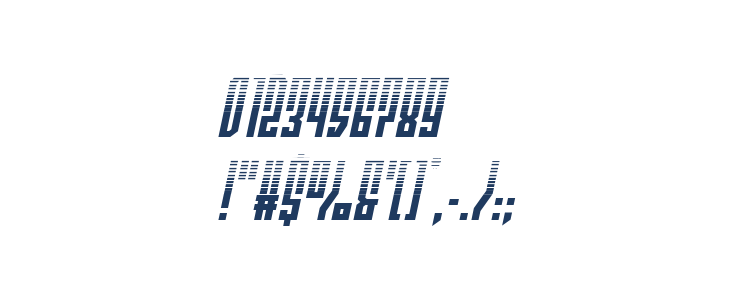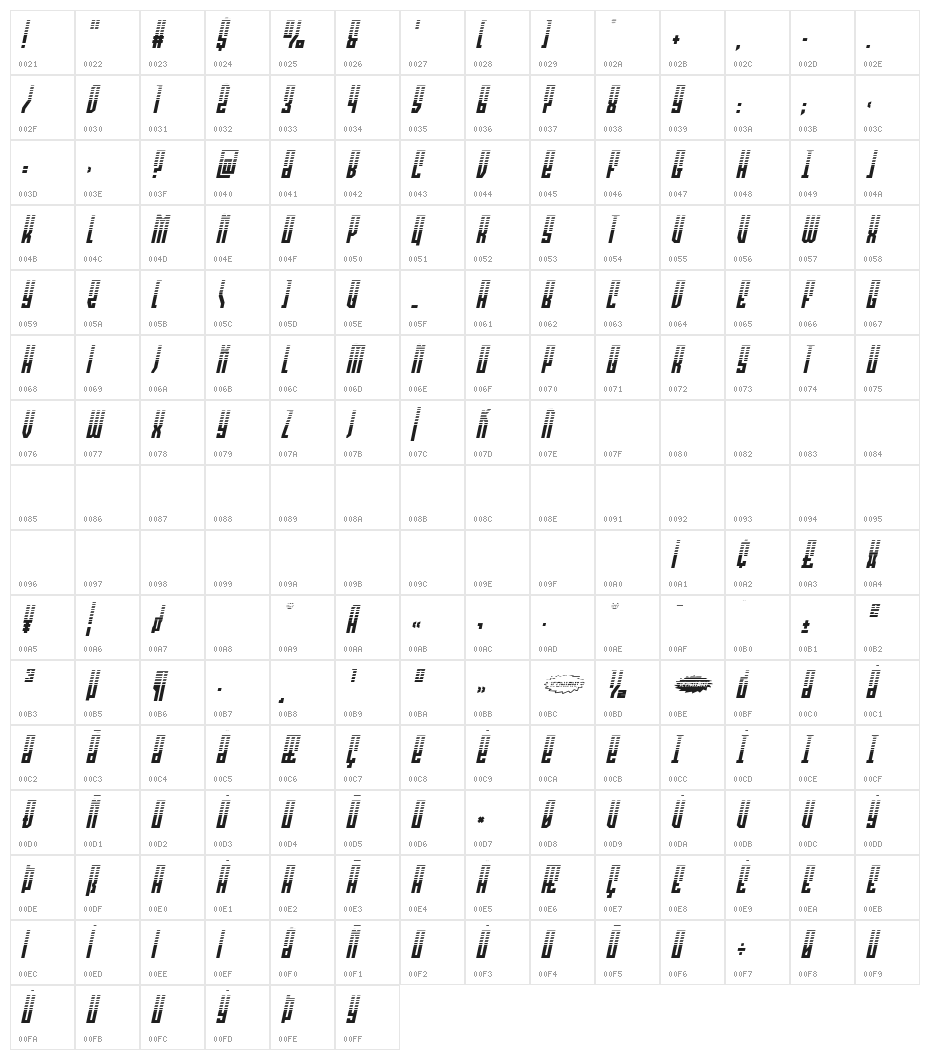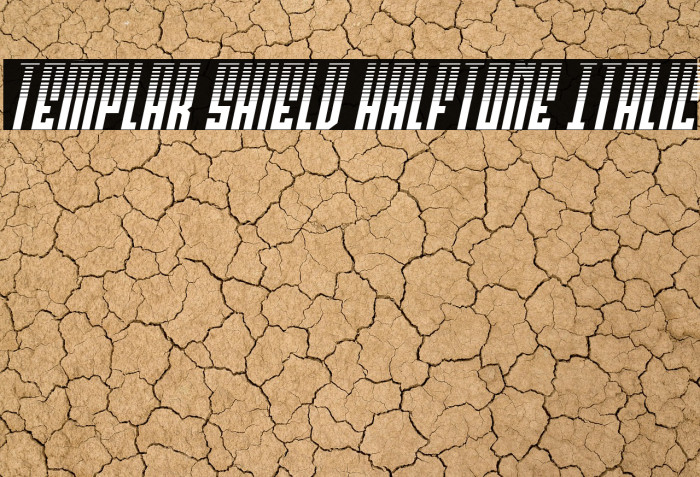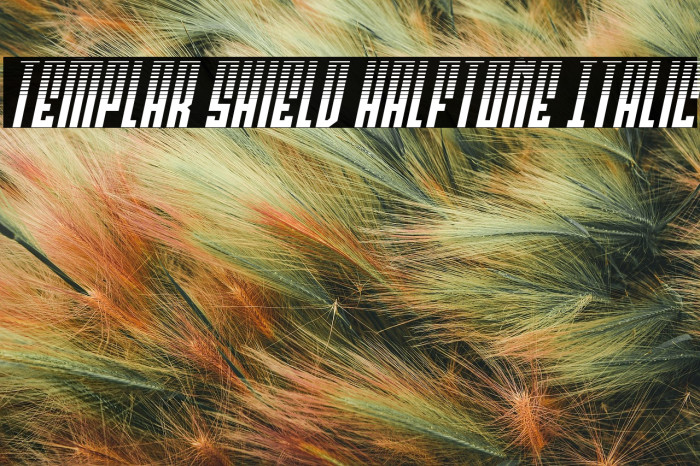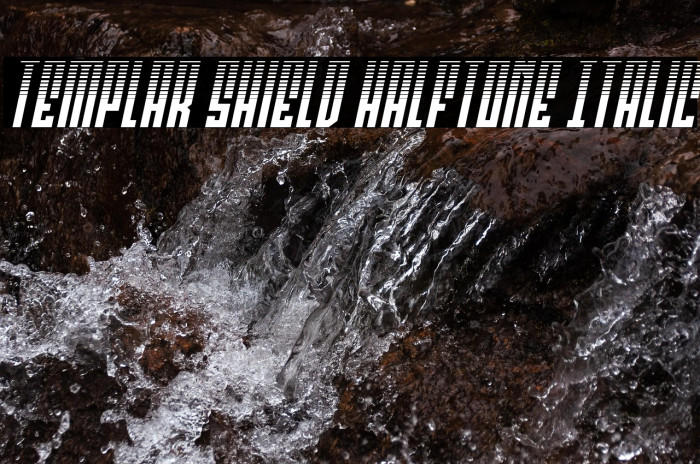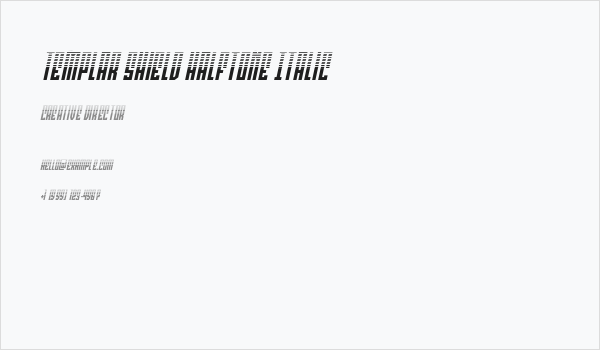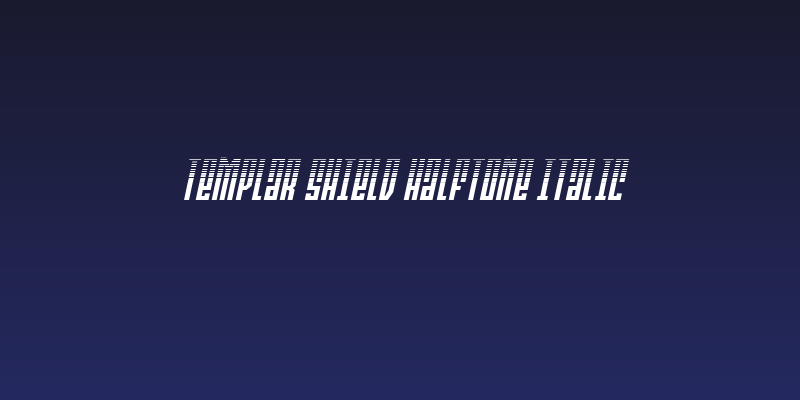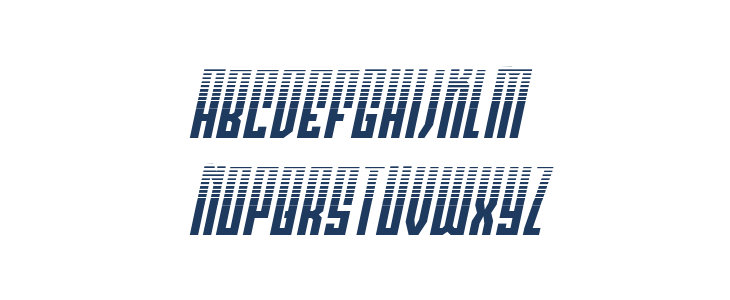
Templar Shield Halftone Italic Font
Templar Shield Halftone Italic Description
This font features a bold, italicized style with a distinctive halftone effect that creates a sense of movement and energy. The characters are elongated and slightly condensed, with sharp, angular lines that give them a futuristic and dynamic appearance. The halftone pattern is most prominent at the top of each character, gradually fading towards the bottom, which adds a unique visual texture. This design choice makes the font particularly eye-catching and suitable for attention-grabbing headlines or titles. The overall aesthetic is modern and edgy, with a strong emphasis on visual impact.